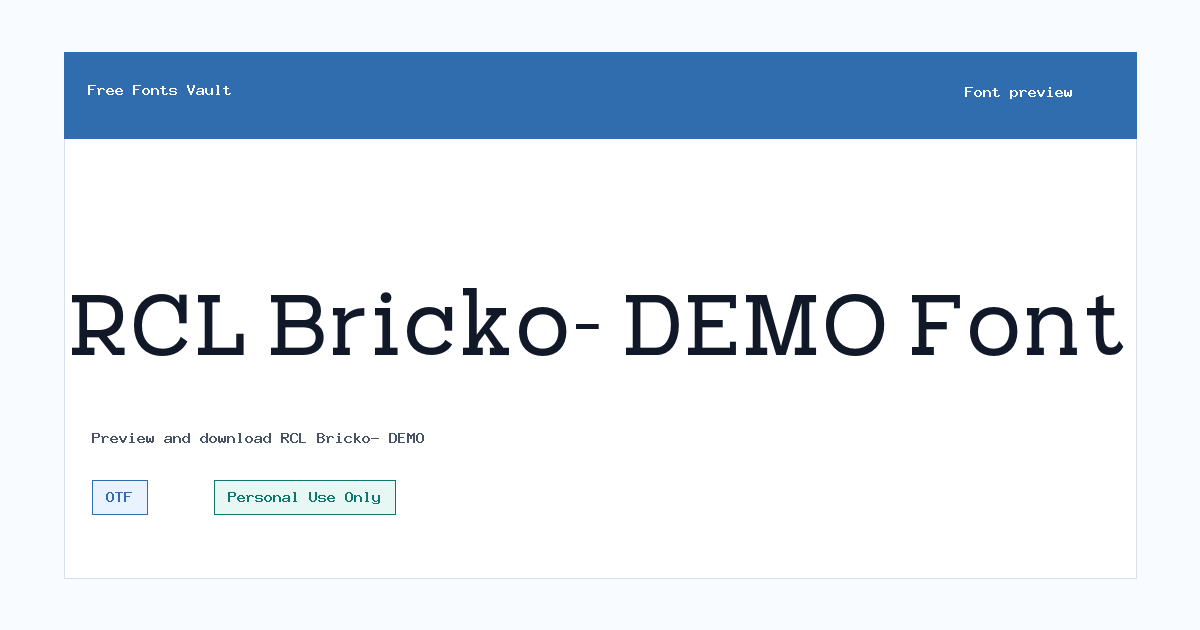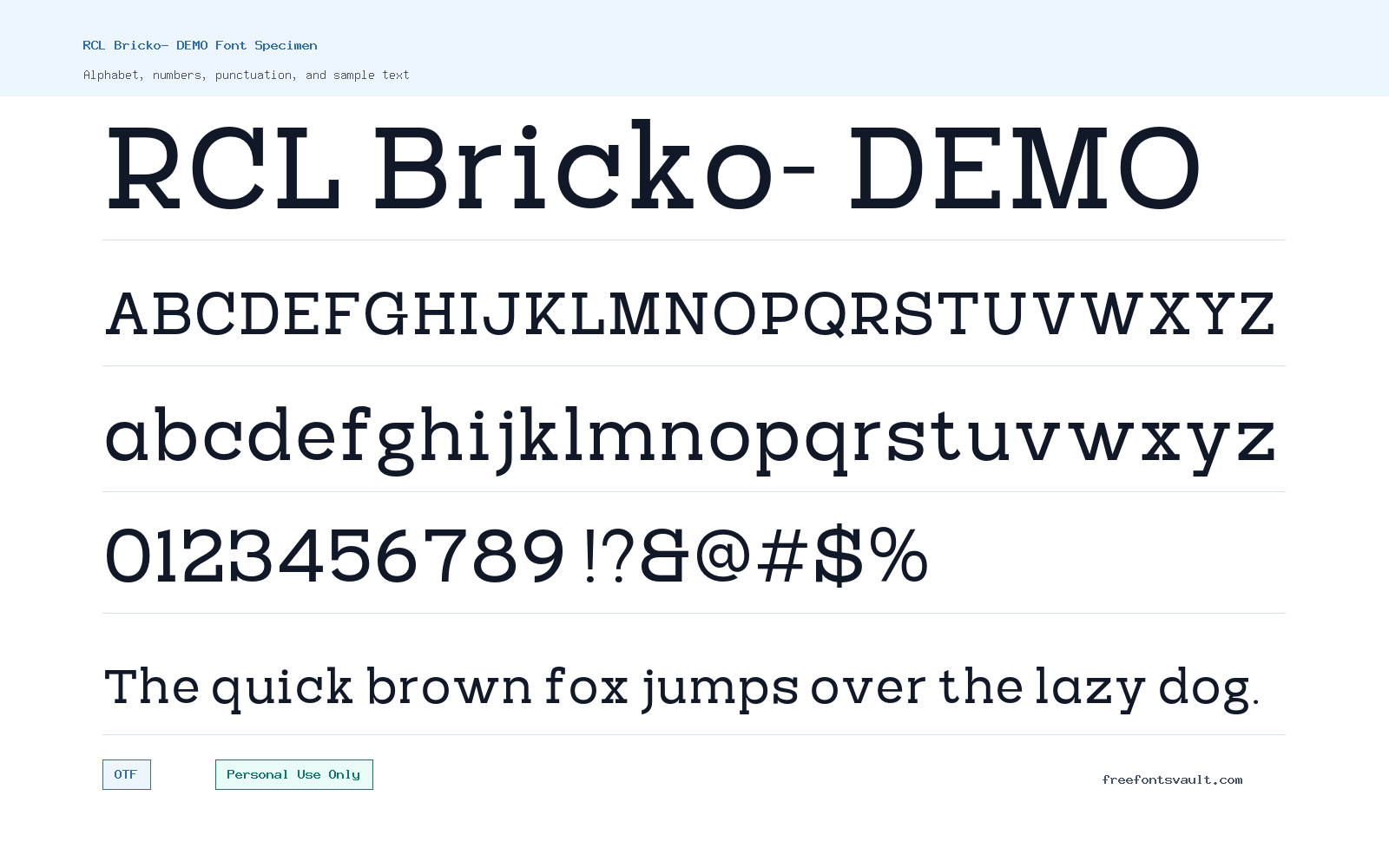
RCL Bricko- DEMO
RCL Bricko- DEMO Font
RCL Bricko- DEMO font.
RCL Bricko- DEMO is a personal-use display font with a slab-serif direction and a sturdy, blocky feel. It is best approached as a headline font: test it at larger sizes, try short words first, and make sure the demo license fits your project before using it.
About RCL Bricko- DEMO
RCL Bricko- DEMO has the kind of solid presence visitors usually look for in a slab-style display face. The letterforms are likely to work best when they have room to breathe, especially in titles, posters, labels, social graphics, and short promotional lines. Because the file name and license text identify it as a demo and personal-use font, it should not be treated as a full commercial family unless you confirm a paid or expanded license from the designer or official seller.
• Slab-serif display direction suited to larger, shorter text
• Posters, title graphics, labels, and short display headings
What style of font is RCL Bricko- DEMO?
The license text refers to Bricko as a slab serif font, and this demo works best as a display face for larger text.